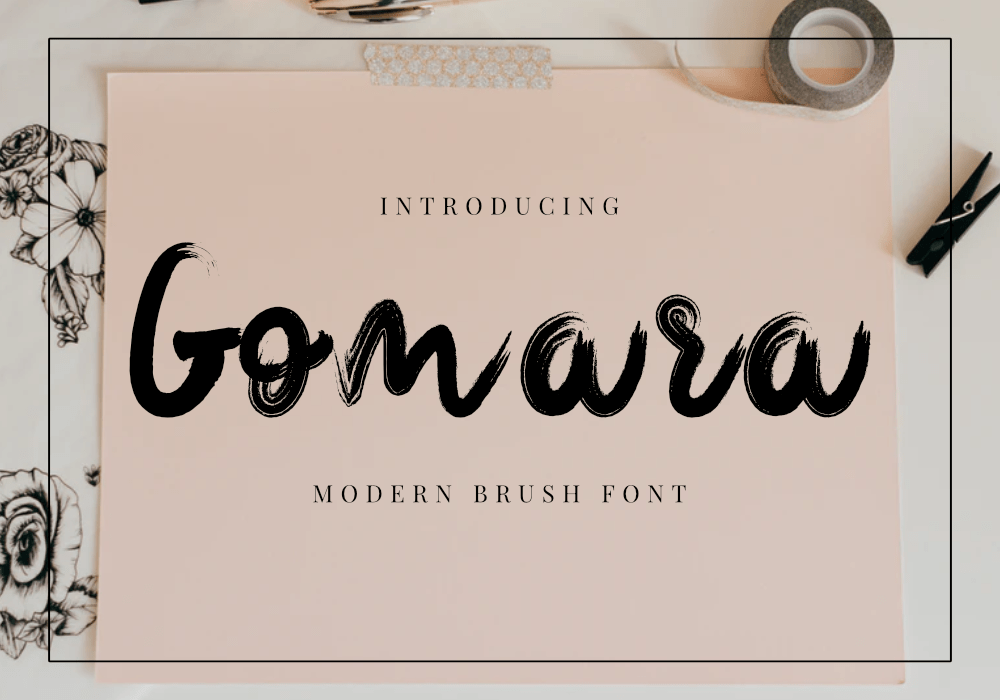
Gomara Font by GraphicsFamily Gomara is a sweet and friendly handwritten dry brush font crafted by GraphicsFamily. Its natural and unique style makes it incredibly fitting to a large pool of designs. Recommended usage: product mock-ups, banners, flyers, menus, tattoo, posters, t-shirts designs, clothing, wedding invitations, etc. Enjoy! !IMPORTANT You may use this font for